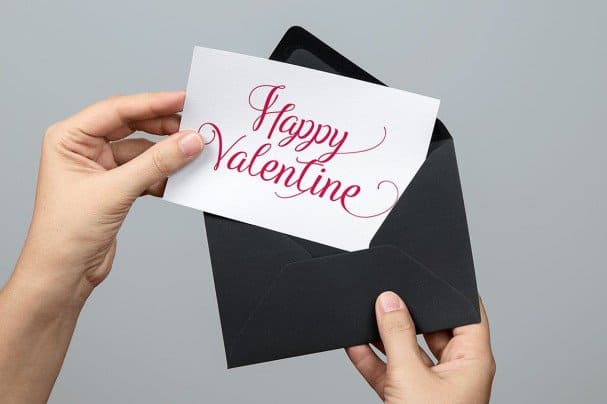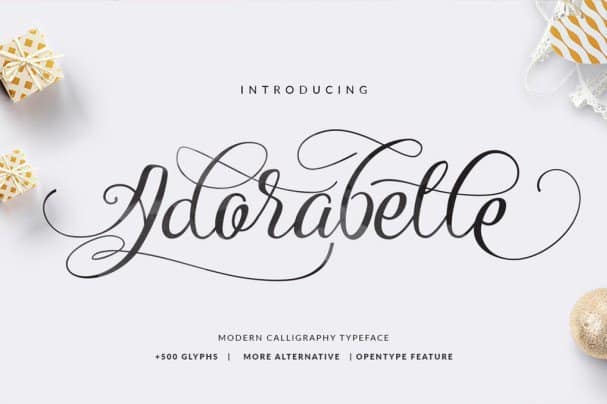
Adorabelle Font
Adorabelle Font falls within the magnificence of the normal fonts. This typeface is famous for its text function. That is additionally called the ebook base font. It’s far similar to neither strictly geometric in inventory; its kinds are created in reality so each guy and the female individual is fast and without trouble diagnosed.
It’s designed to make the entire clients are without hassle the use of it. The selection of the right font place of business artwork is as massive as includes akrobat font or a person intelligently to a format. Adorabelle Font Free It has an extreme, near the awesome look and is drastically identified for finishing acting leaders, on the problem of a touch of splendor to trademarks and which incorporates sophistication to signal designs. It exists to useful beneficial useful resource you to move duties off of your regular list and go together with the flow on.
It looks like comic sans font can be used as an alphabet tattoo and language supergirls. Download It has combined collectively an attractive and acquainted that appears effective in an emblem or on seeking out and promoting playing cards, giving them a seam that’s particular. The whole circle of relatives has a moderate and splendor that has made it famous for the lipstick font of the frame textual content in publications and booklets.